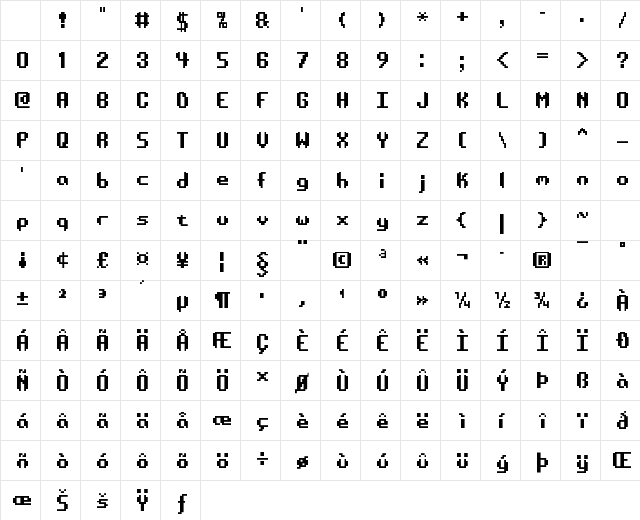
Complete Systematic TT BRK Regular glyph index. Displaying only characters natively supported by Systematic TT BRK Regular font.
Systematic TT BRK is a composed and adaptable typeface that performs quietly and consistently across a wide range of design contexts.